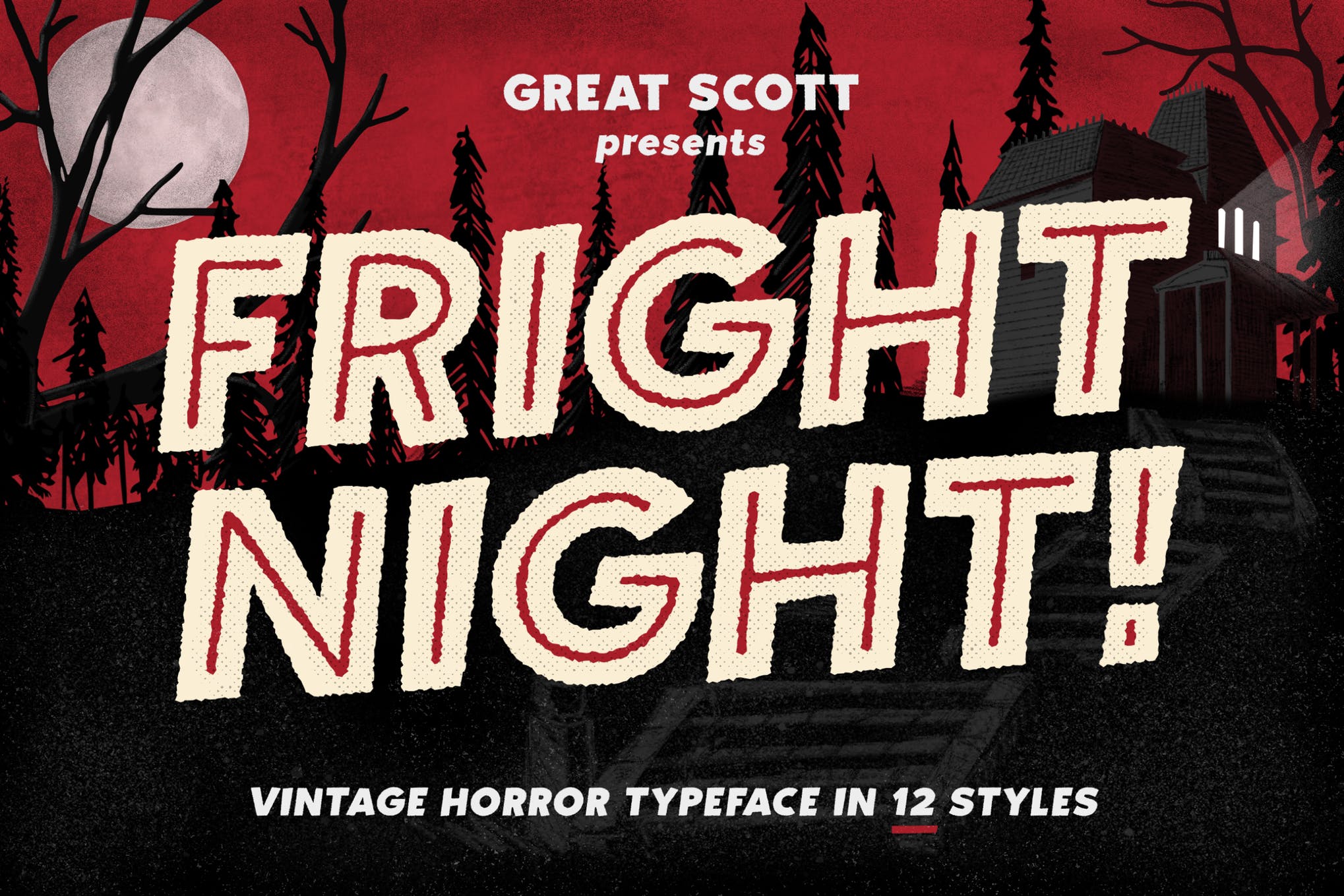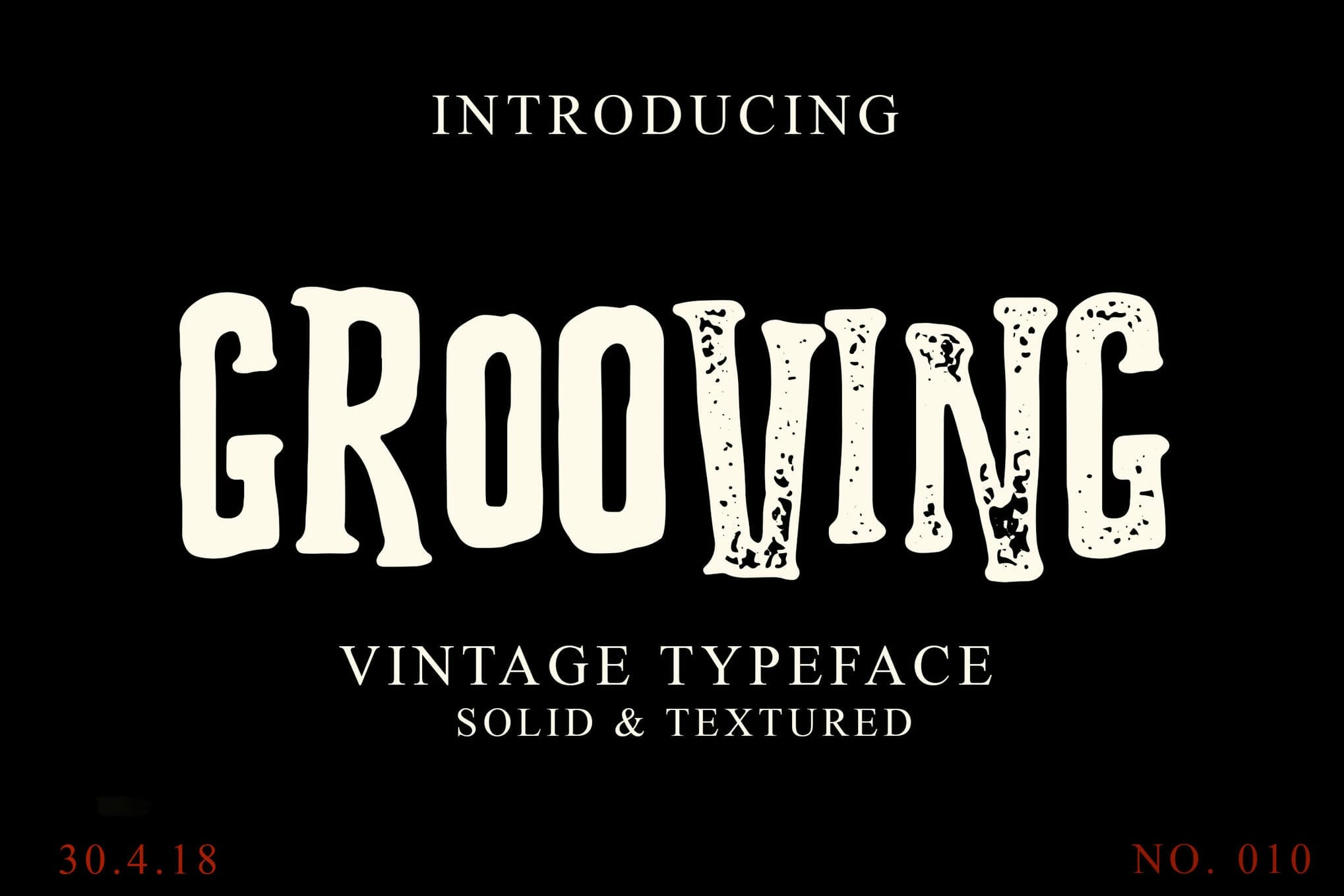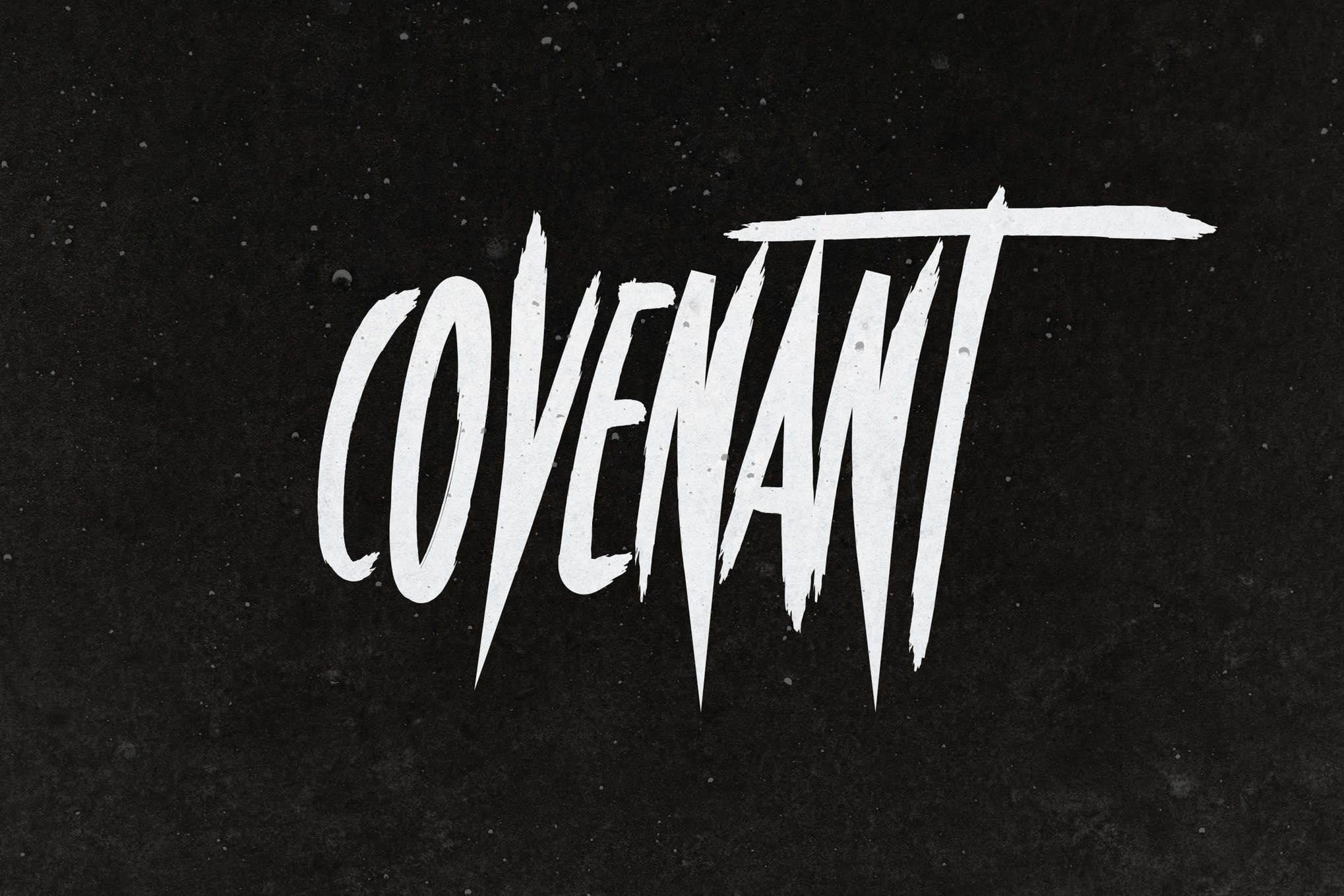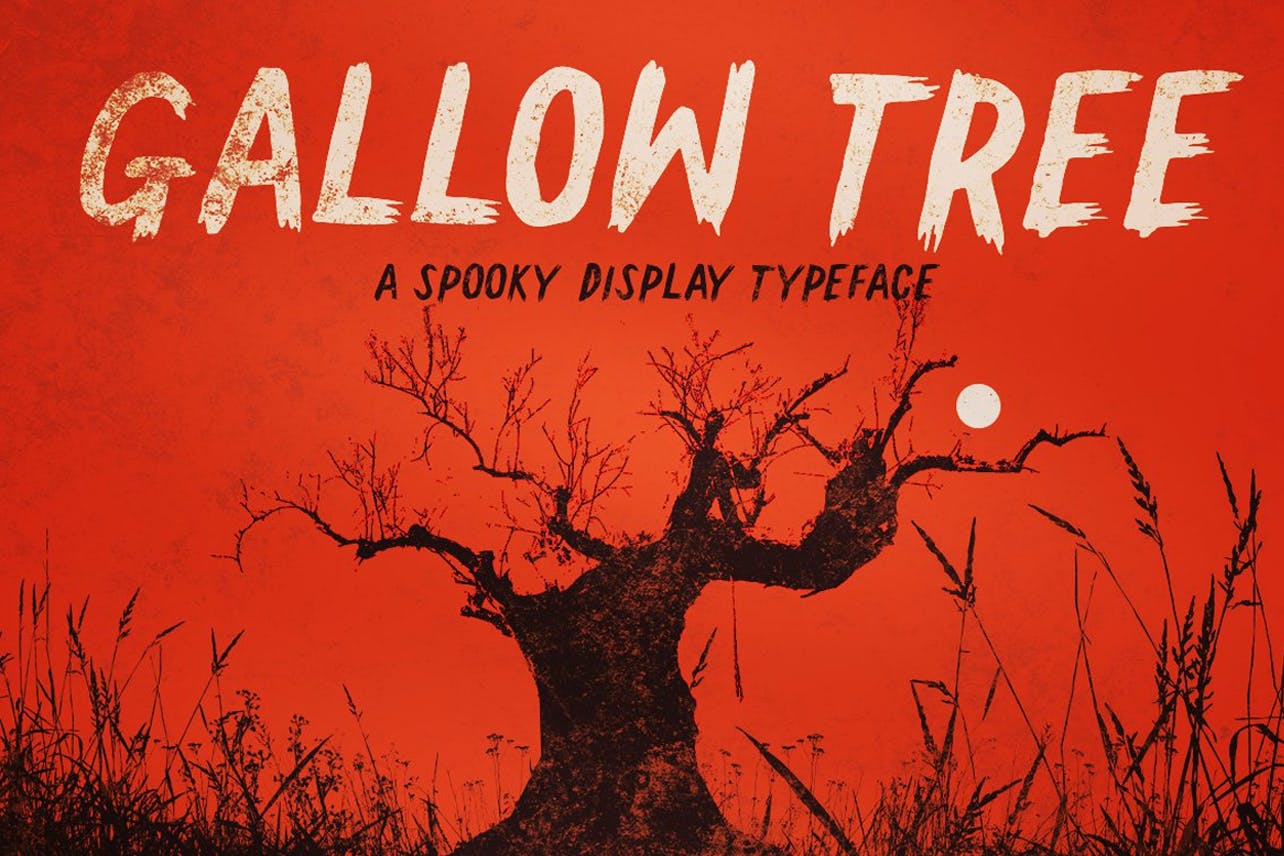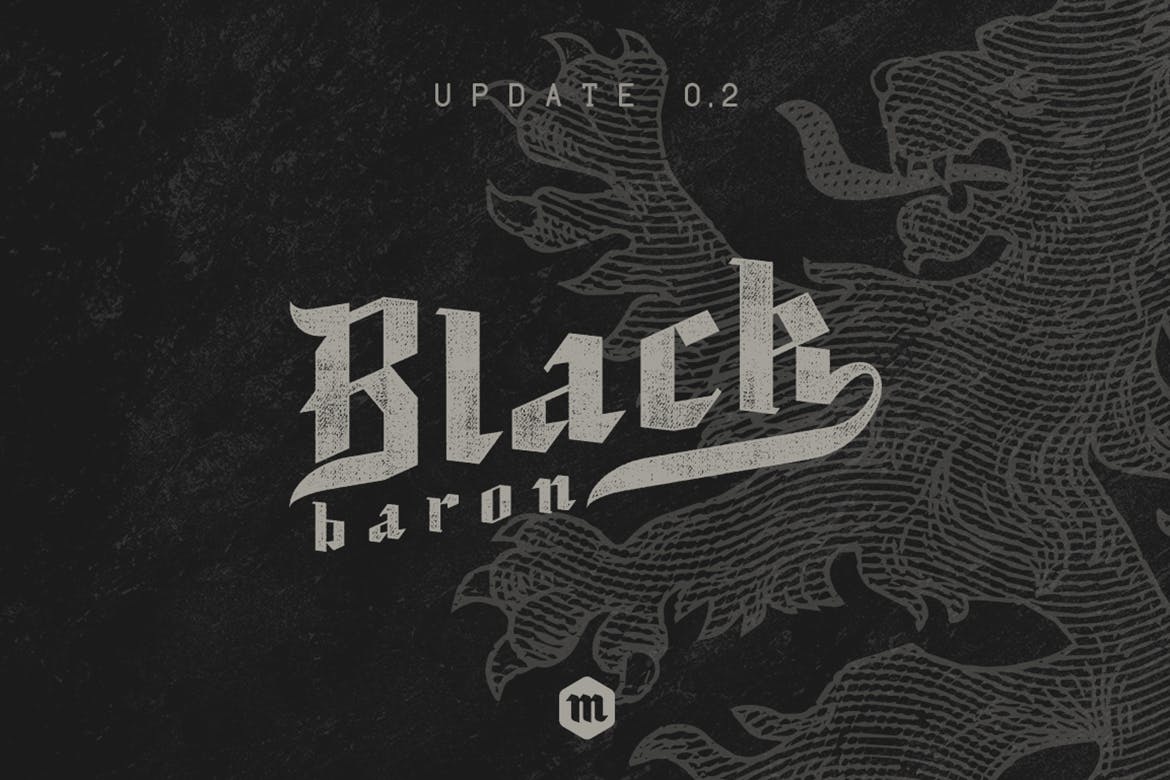
Top 5 Halloween Fonts for 2019
Halloween is right around the corner. It’s the day we all crave as an excuse to dress up in extravagant costumes and eat tons of candy. We picked the brain of our lead designer, for his thoughts on the top Halloween fonts for 2019.
Why? Because this is also the time of year where we start to see specialized Halloween fonts. You see these fonts mainly in email copy, images for emails, social media campaigns, printed materials, and quite possibly on your favorite websites.
Fright Night
Great Scott presents Fright Night Vintage Horror Typeface in 12 Styles - Halloween Fonts for 2019
This font screams vintage b-movie horror. I adore the bold, geometric block lettering. Fright Night also comes in several styles with hundreds of glyphs, which really makes this a versatile addition to any Font Book.
Grooving
Introducing Grooving Vintage Typeface Solid & Textured 30.4.18 NO.010 - Halloween Fonts for 2019
There’s something wonderfully off-putting about a typeface that isn’t uniform and that looks like it was hand-lettered by Egor himself. Grooving also comes in two styles–solid and textured–which is a nice bonus.
Covenant
Covenant - Halloween Fonts for 2019
Covenant is a modern typeface that looks like it’s about to pull a Psycho shower scene on you. It’s tall, narrow, and very pointed. The bold look would look amazing on a poster, book, website…you name it!
Gallow Tree
Gallow Tree A Spooky Display Typeface - Halloween Fonts for 2019
Just look at it. If Gallow Tree didn’t scream Halloween, I don’t know what would. The hand drawn lettering looks like something you’d see hastily painted on the walls of a haunted house warning you to “GET OUT!”
Black Baron
Update 0.2 Black baron - Halloween Fonts for 2019
I like this font because it evokes a medieval feel, perfect for haunted castles and spooky type projects alike. The angles are wickedly sharp, and the occasional script-like accents really elevate this beyond atypical Gothic Blackletter typeface.